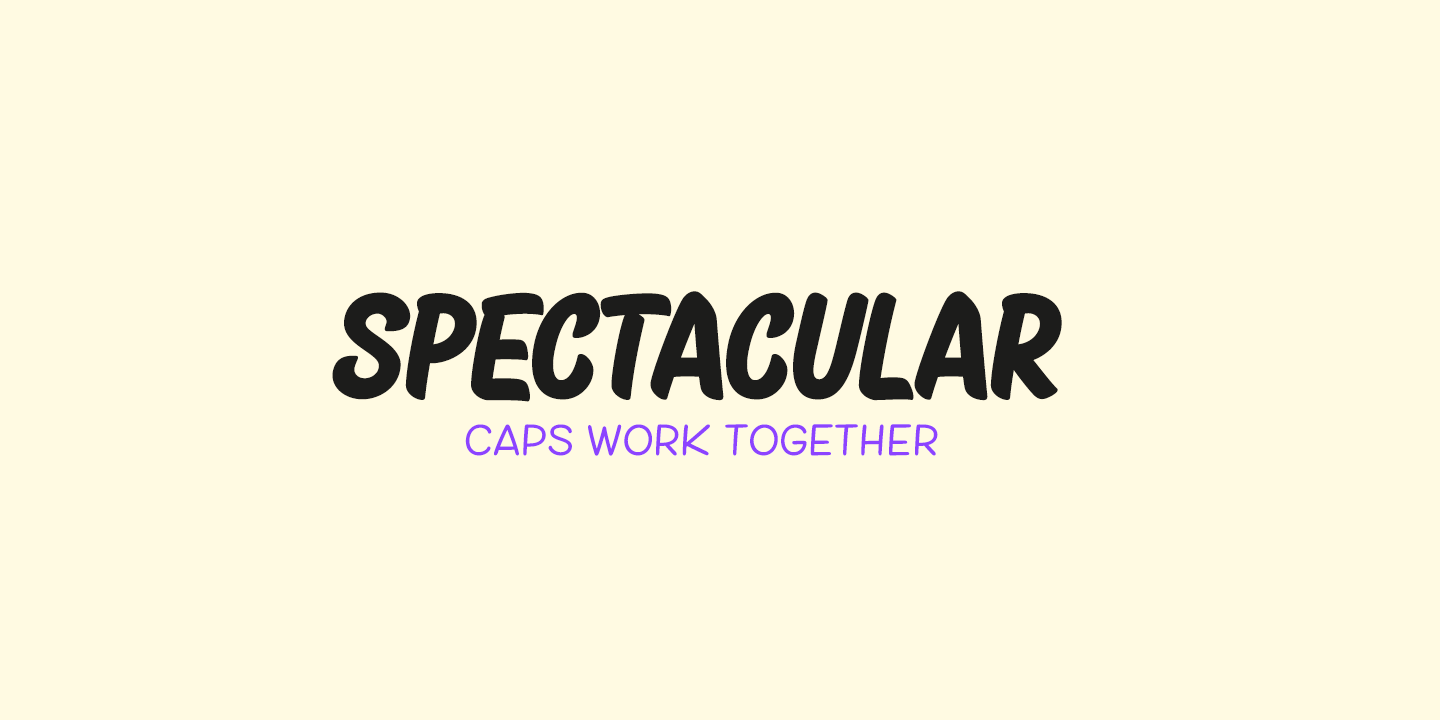
Cherry Font is perfect for sweet bakery branding, fruit product packaging, playful children's designs, romantic wedding stationery, vintage-inspired signage, charming boutique logos, delightful dessert marketing, and whimsical lifestyle communications. This delightful typeface excels in applications requiring sweetness and charm that captures the essence of innocent joy and fresh fruit appeal through adorable visual character.
What makes Cherry Font exciting is its irresistibly sweet personality that perfectly captures the delightful essence of fresh cherries and innocent charm through lovingly crafted letterforms. The font features rounded character construction with sweet curves and playful presence that instantly evokes feelings of sweetness, joy, and nostalgic happiness perfect for brands celebrating innocence, sweetness, and delightful experiences.
The Cherry Font family includes regular and sweet variations with fruit-inspired styling elements, offering designers comprehensive tools for creating charming sweet compositions. The family provides consistent delightful aesthetic with varying sweetness levels for versatile fruit branding and charming product marketing requiring genuine sweet appeal and playful character presence.
The sweetly crafted letterforms of Cherry Font ensure excellent readability while maximizing charming appeal and sweet character, making it ideal for fruit packaging, children's products, and delightful marketing materials. This charming typeface combines sweet authenticity with modern technical standards for outstanding performance in contemporary design projects requiring genuine sweetness and playful innocent character.